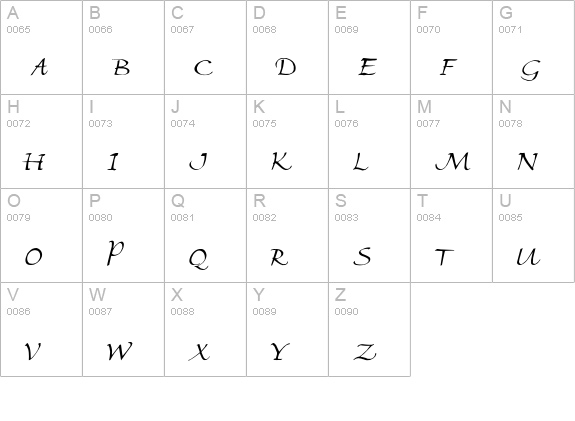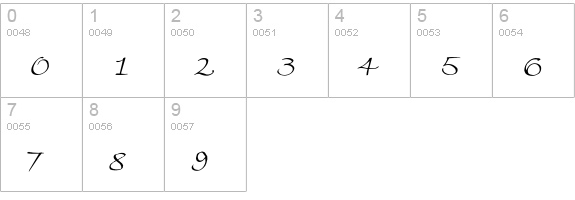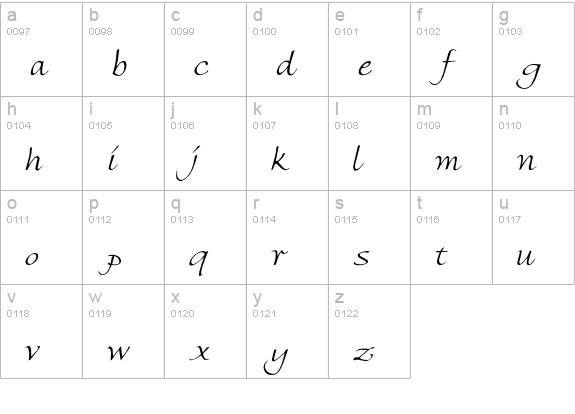
Florence-Light is a refined, elegant variant in the Florence typeface family \xE2\x80\x94 well suited to elegant body text, refined sub-headings, and luxury branding.
Florence-Light font exudes elegance and sophistication with its delicate strokes and refined curves. This font is a perfect choice for projects that require a touch of grace and modernity. Its clean lines and airy feel make it versatile and suitable for a wide range of designs, from invitations to branding materials. What makes Florence-Light font even more appealing is that it is absolutely free to download. You can easily access this stunning typeface at FontsMarket.com, where you can add a touch of sophistication to your projects without any cost. Embrace the beauty and versatility of Florence-Light font in your designs today and elevate your creative work to new heights.